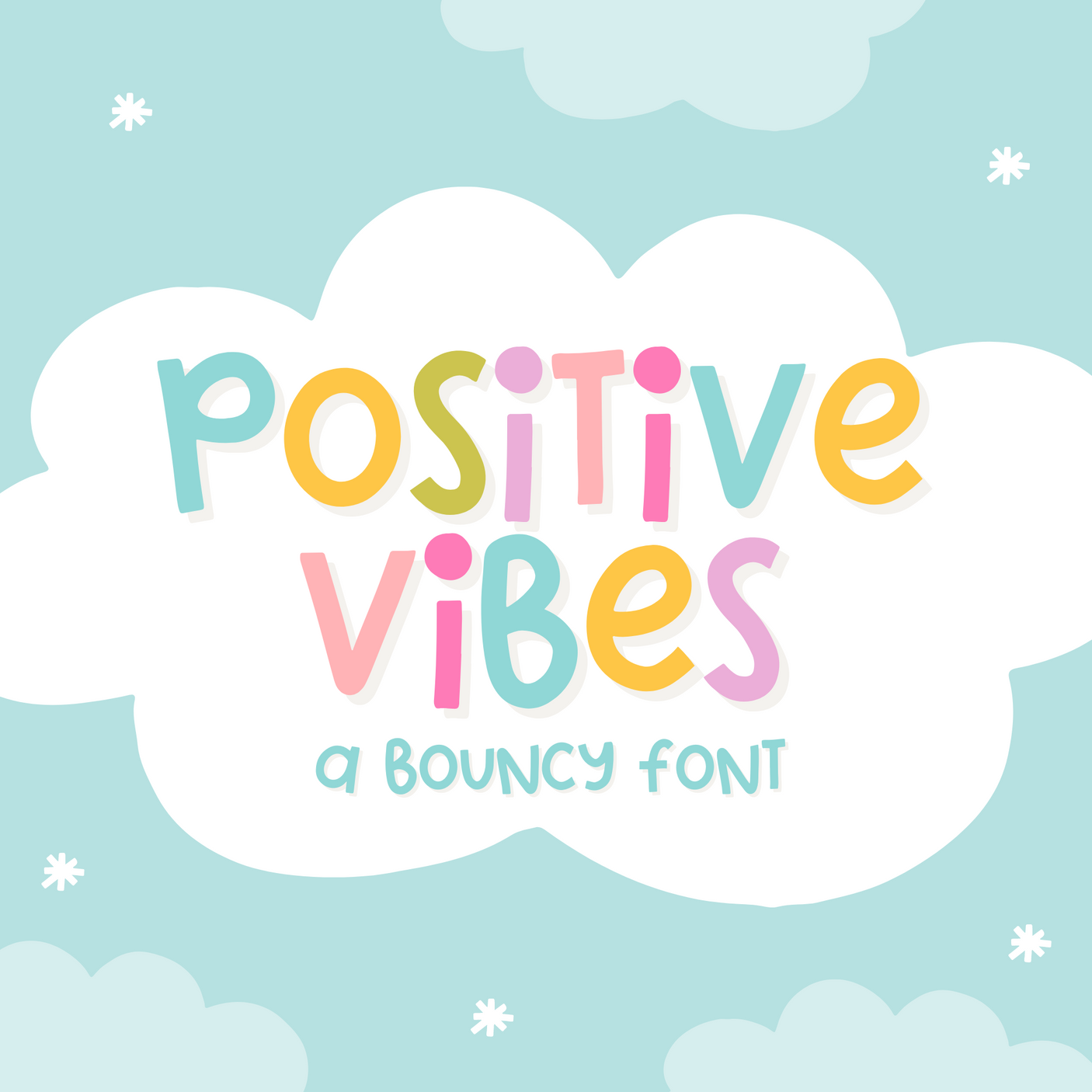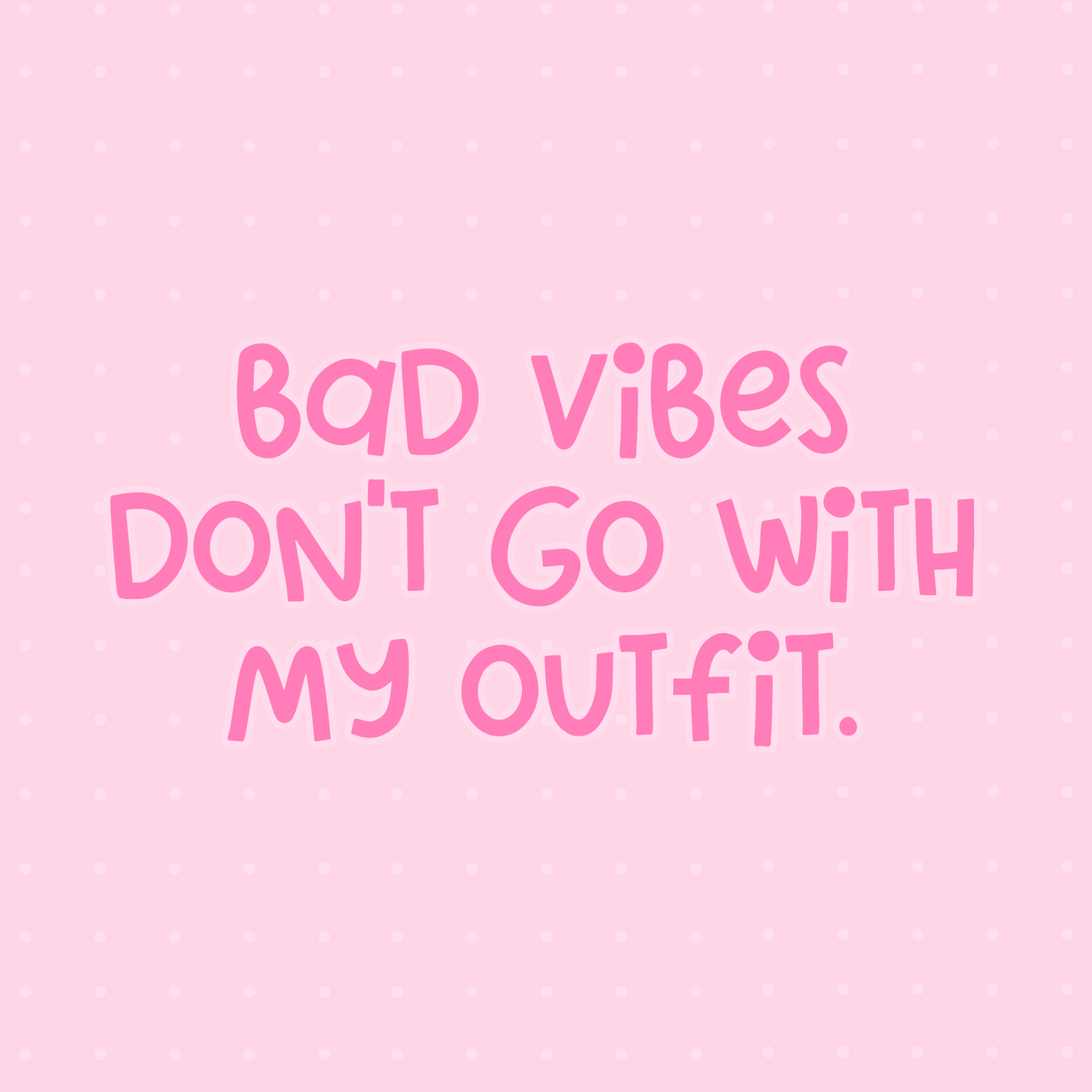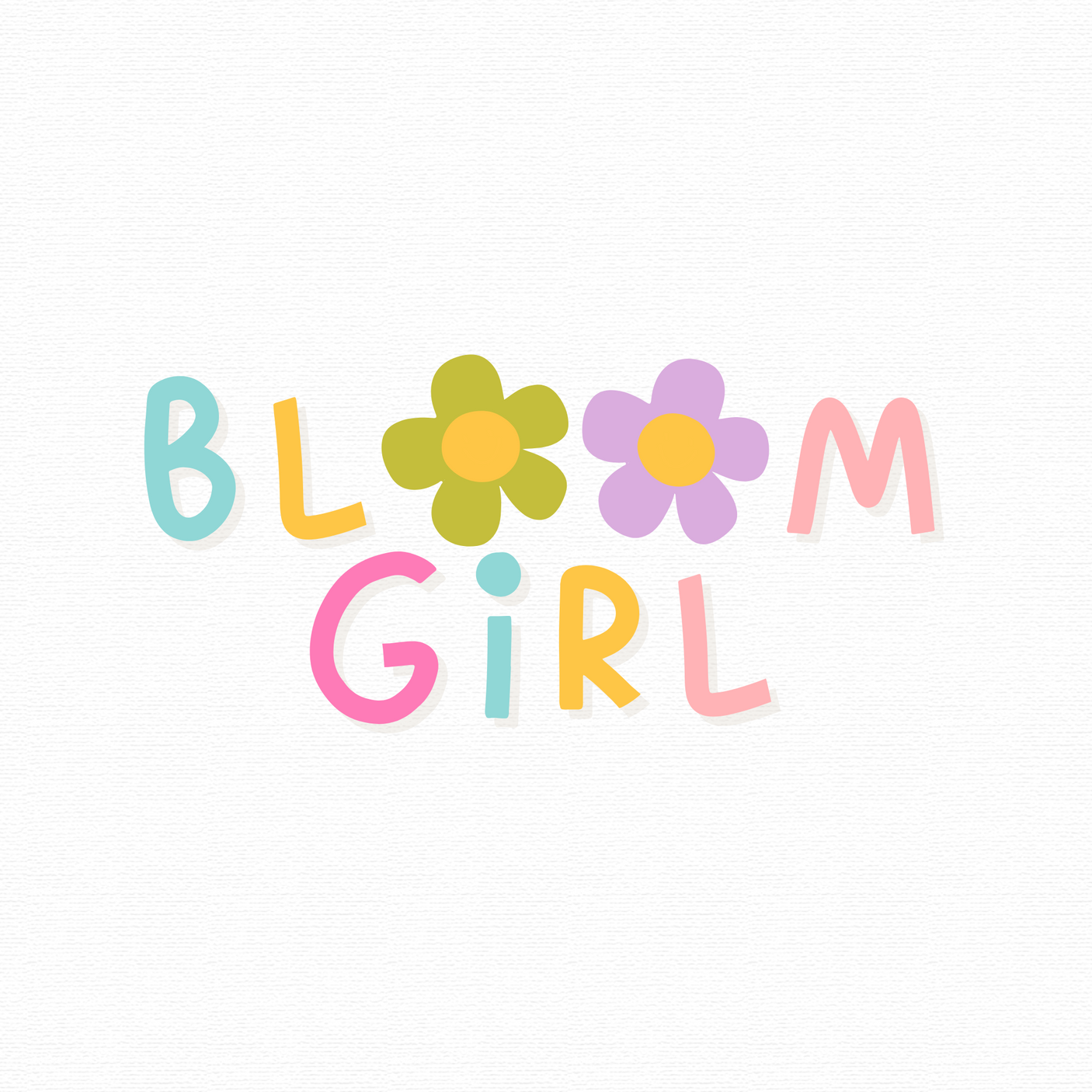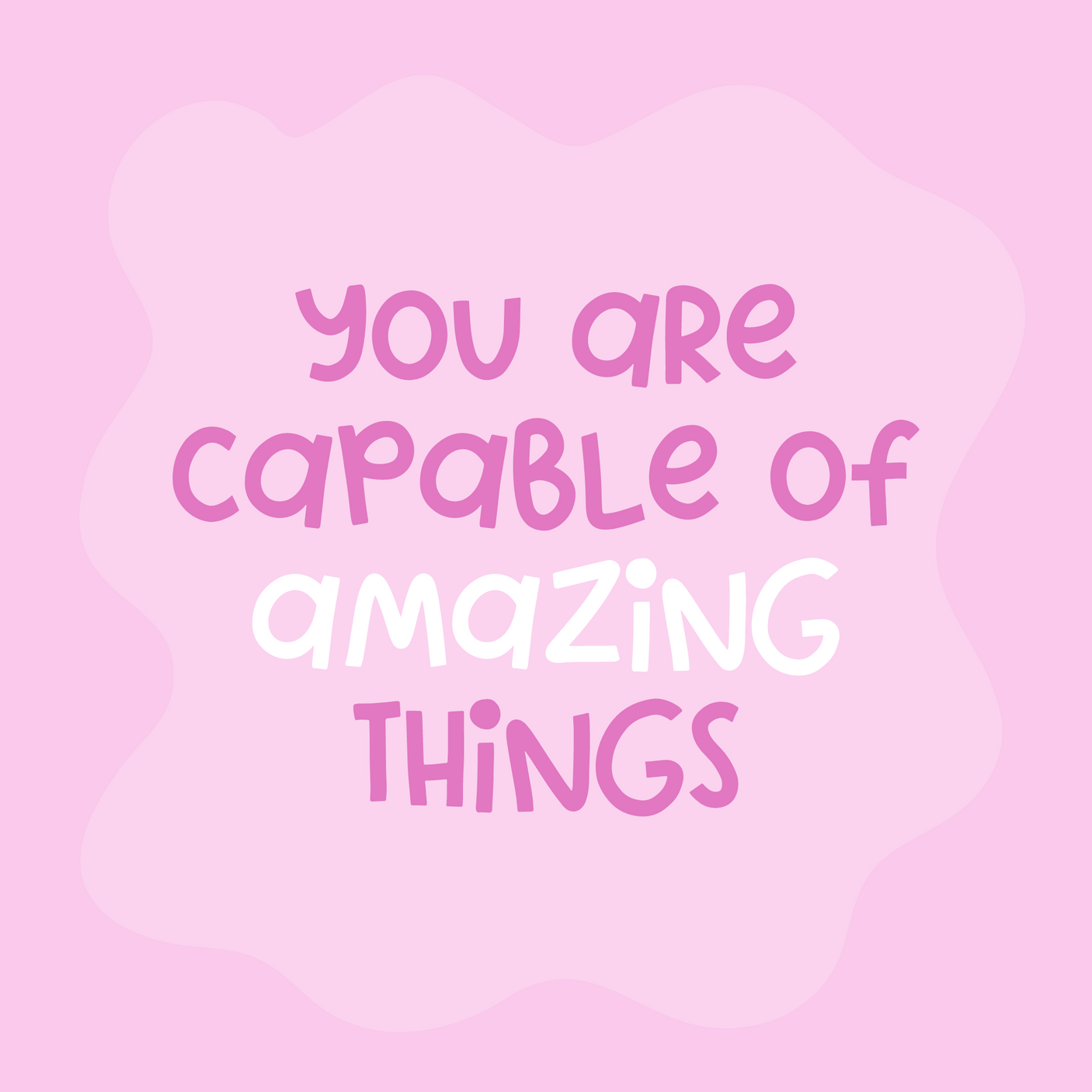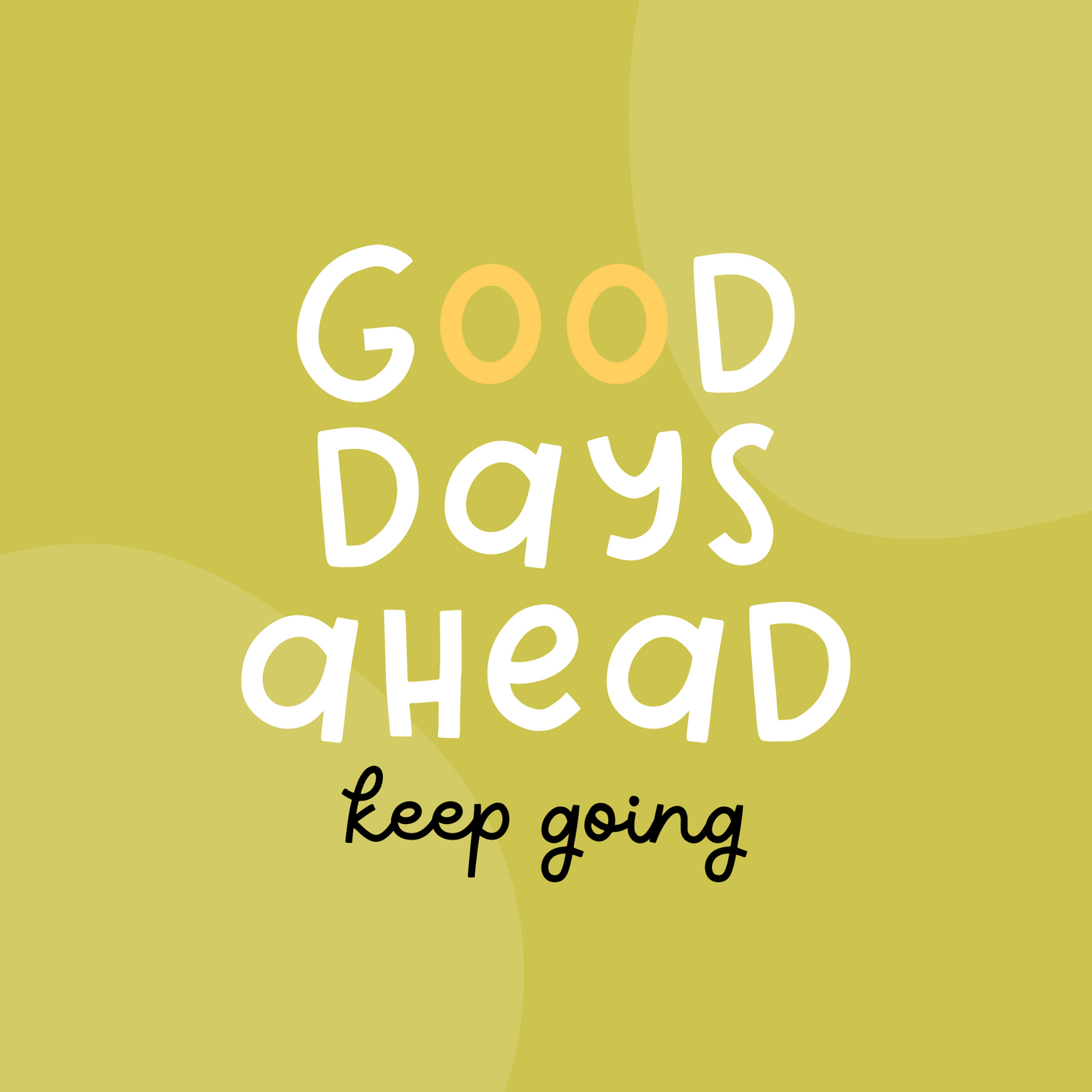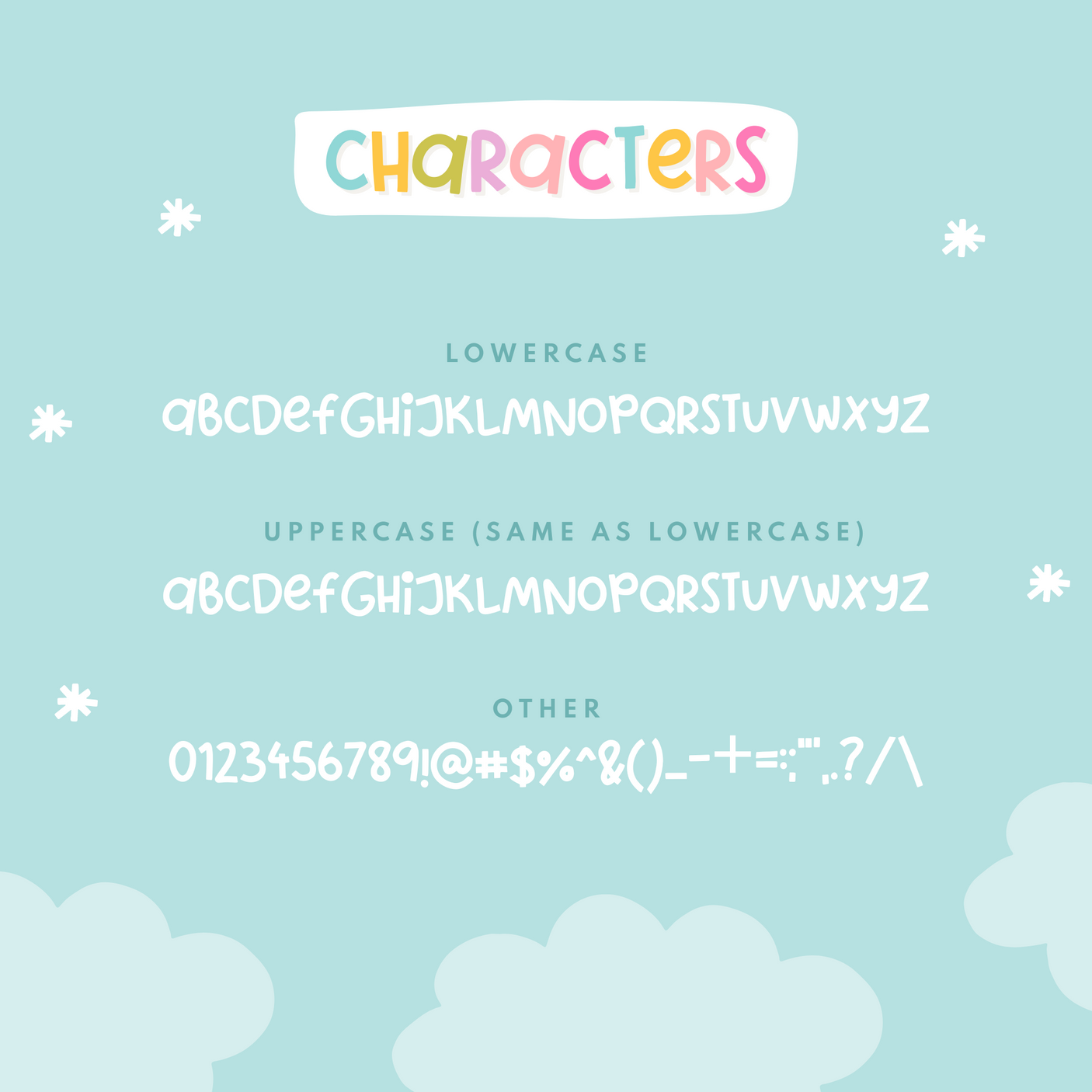
Positive Vibes Font
Radiate positivity with the Positive Vibes font, a cheerful and bouncy typeface that injects a dose of joy into any project. This font’s mix of playful uppercase and lowercase characters is perfect for creating designs that are both fun and uplifting. Whether you're crafting a heartfelt card, designing social media posts, or working on a digital project, Positive Vibes is your go-to choice for a playful font that will add that extra touch of happiness to your work.
Beyond its joyful appearance, Positive Vibes offers remarkable versatility. It's compatible with Procreate, Cricut, and Canva, making it an essential tool in your creative toolkit. The font's friendly curves and balanced proportions make it easy to read, while its playful essence ensures your designs always carry a positive and engaging message.